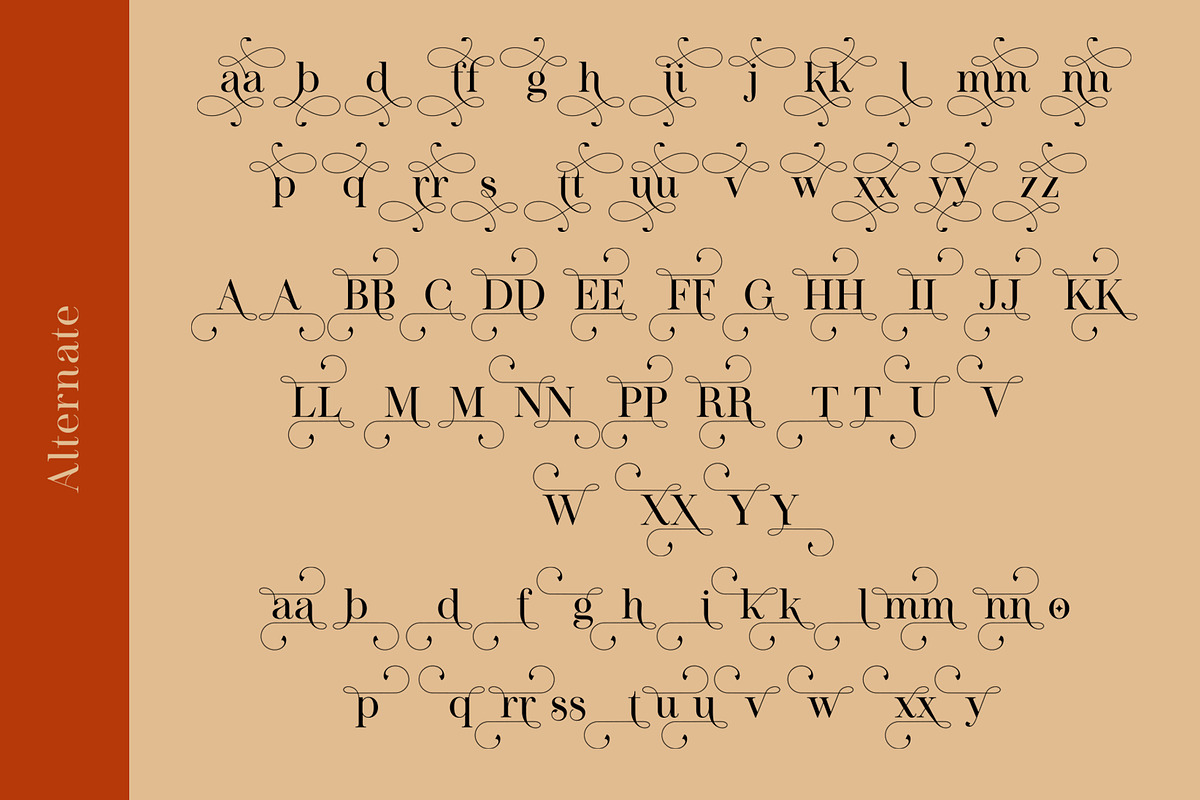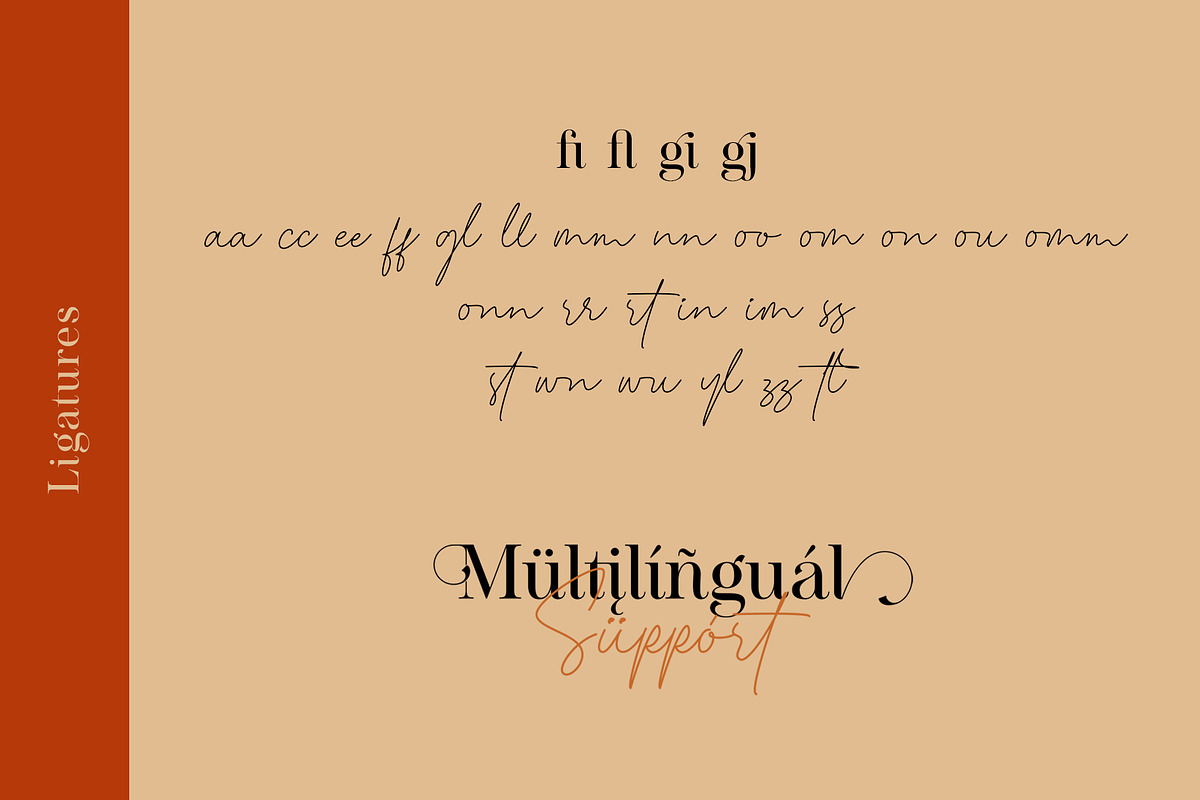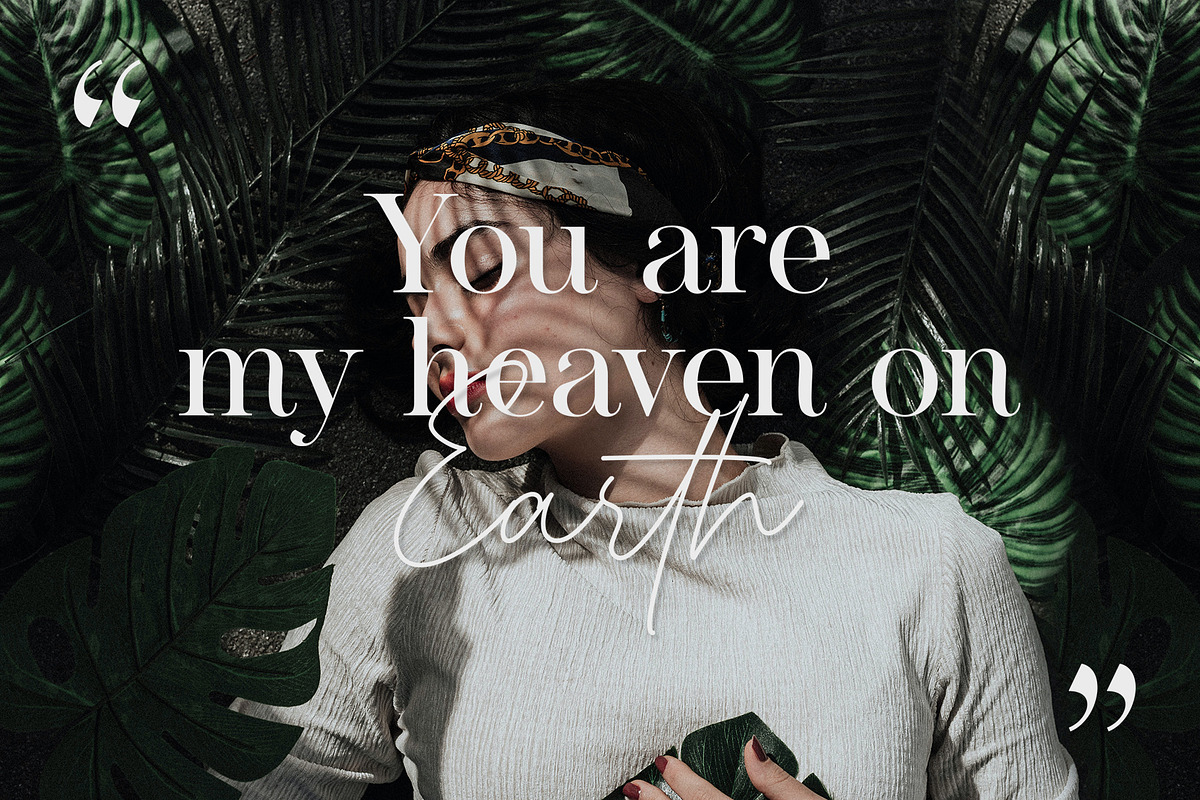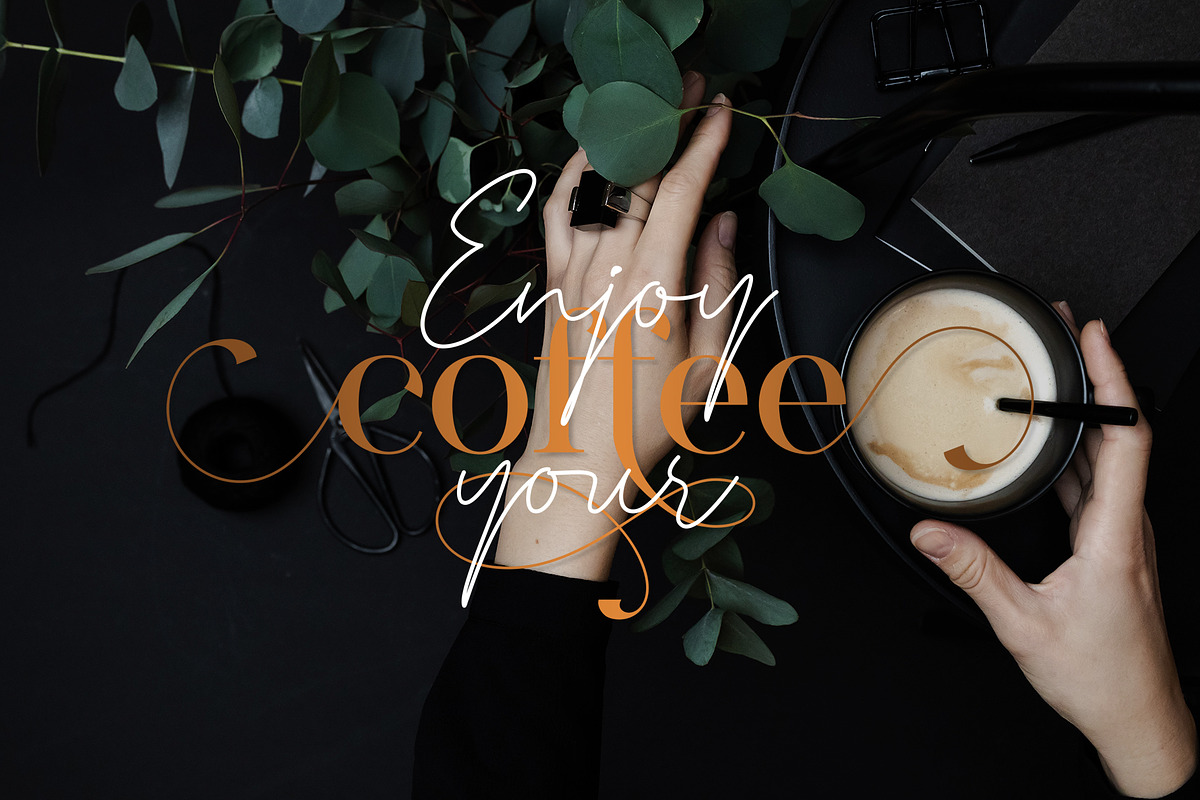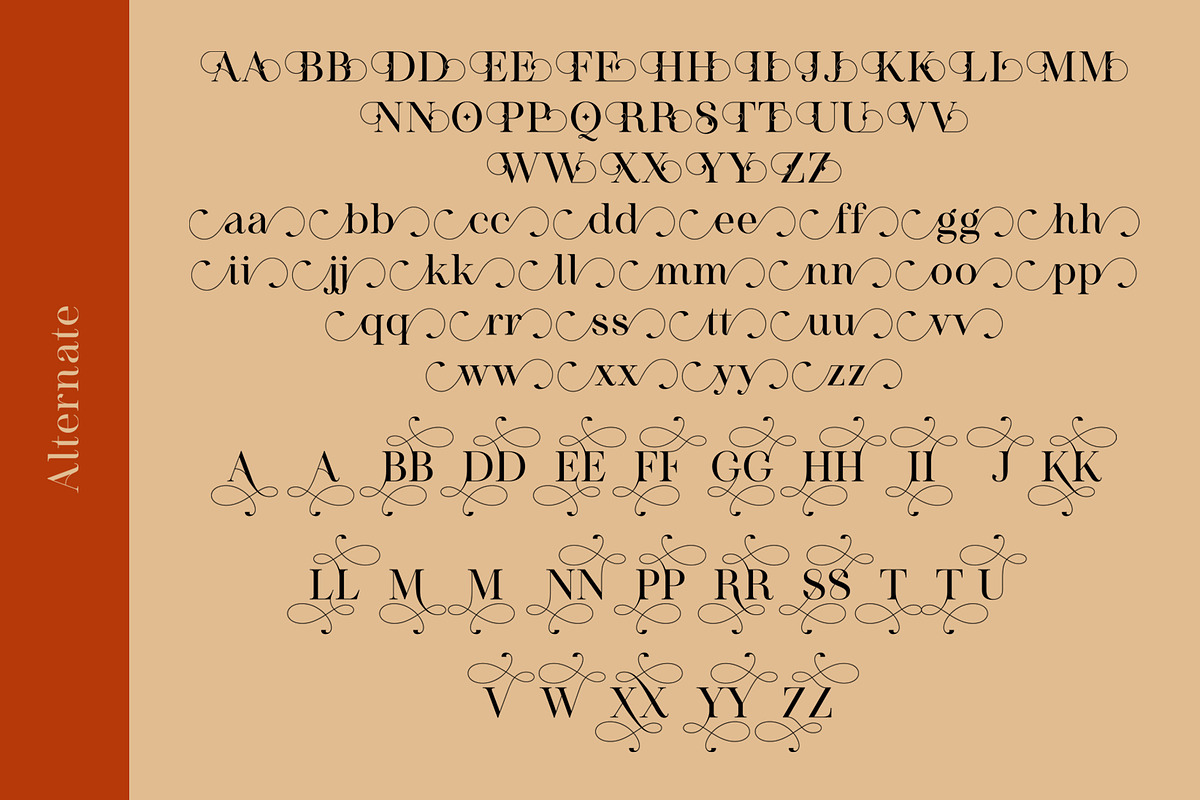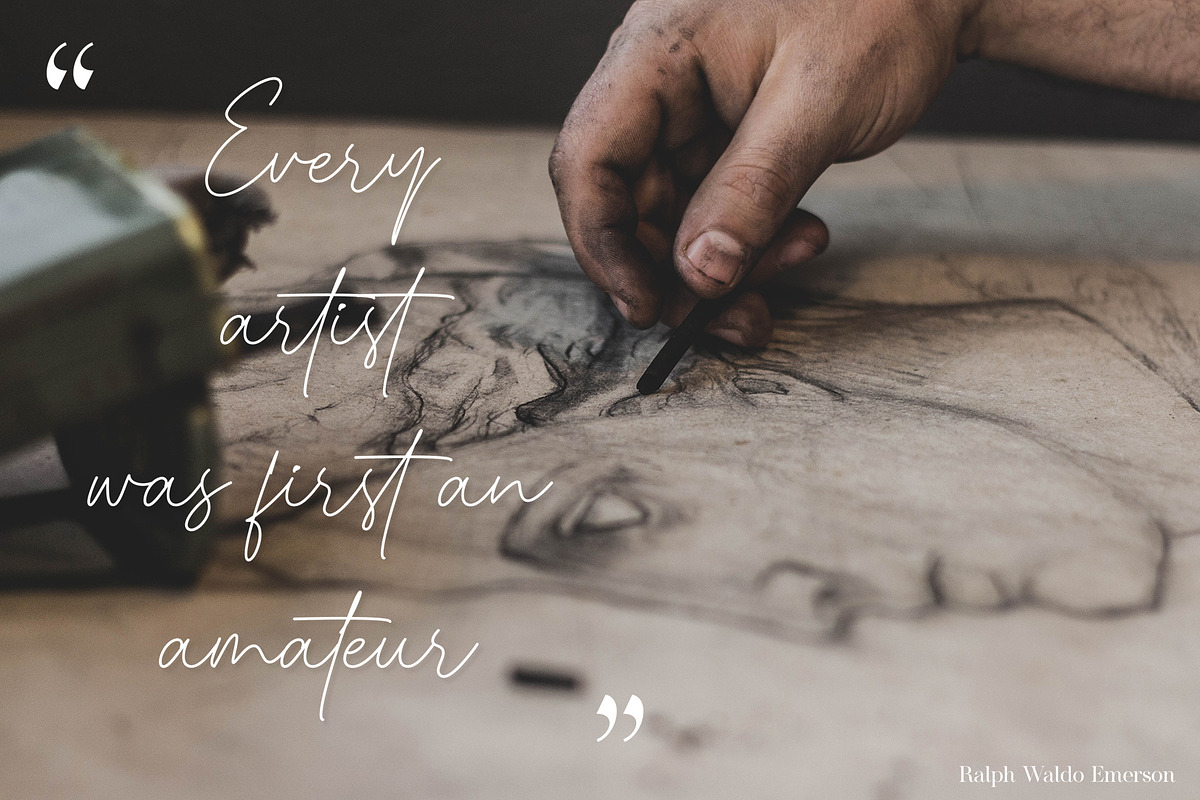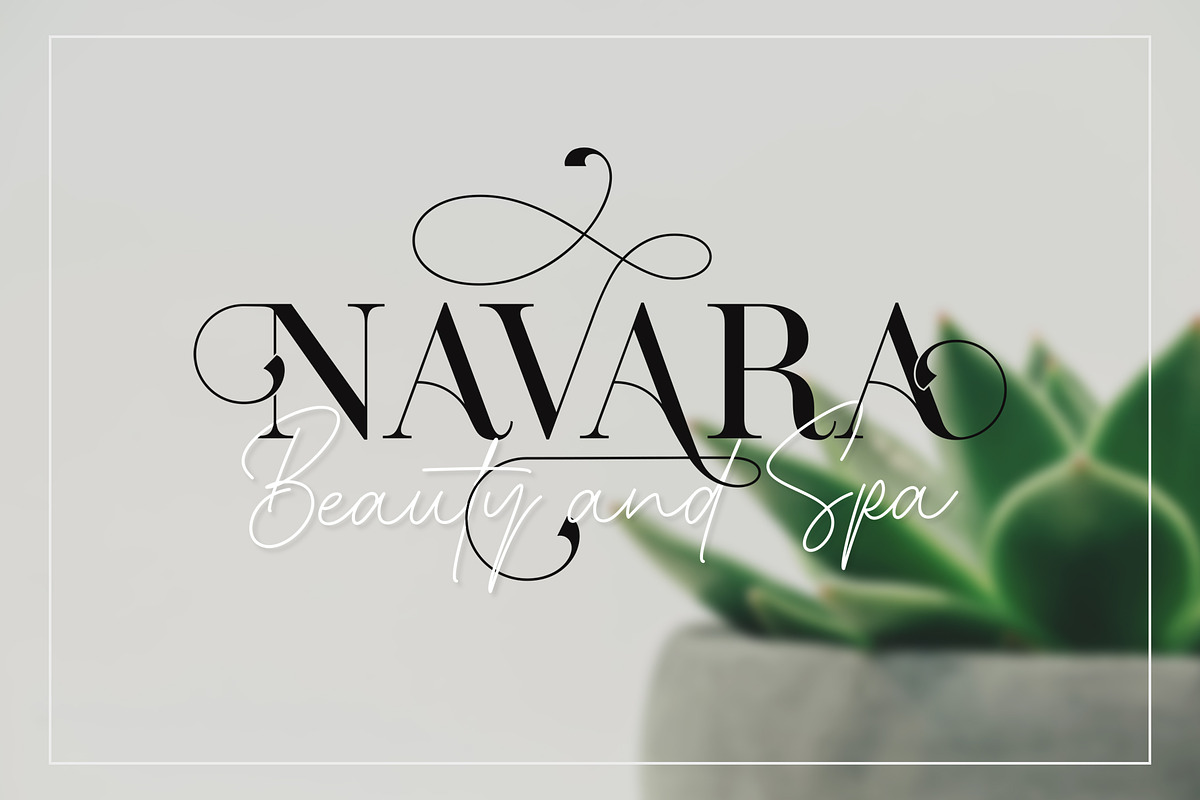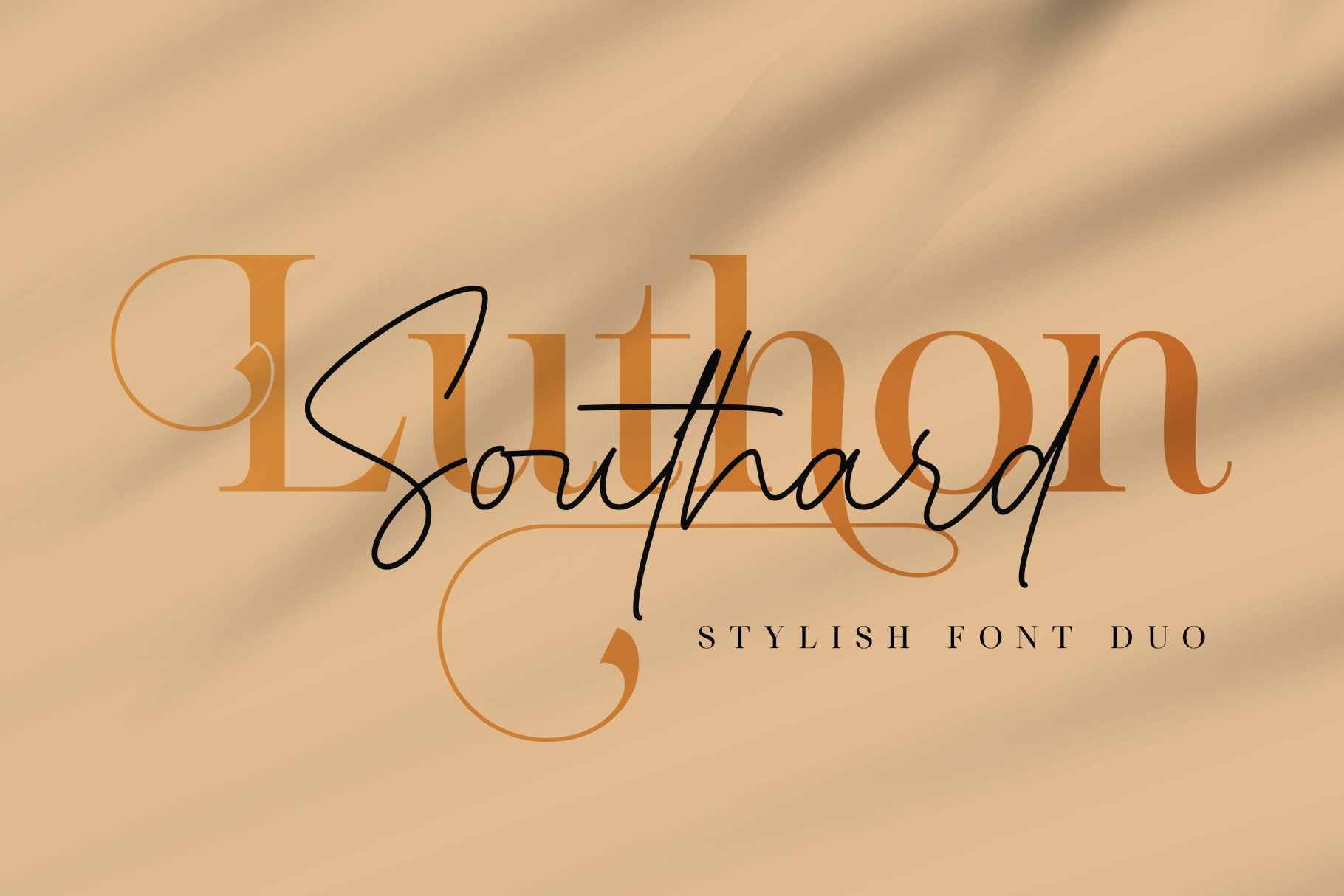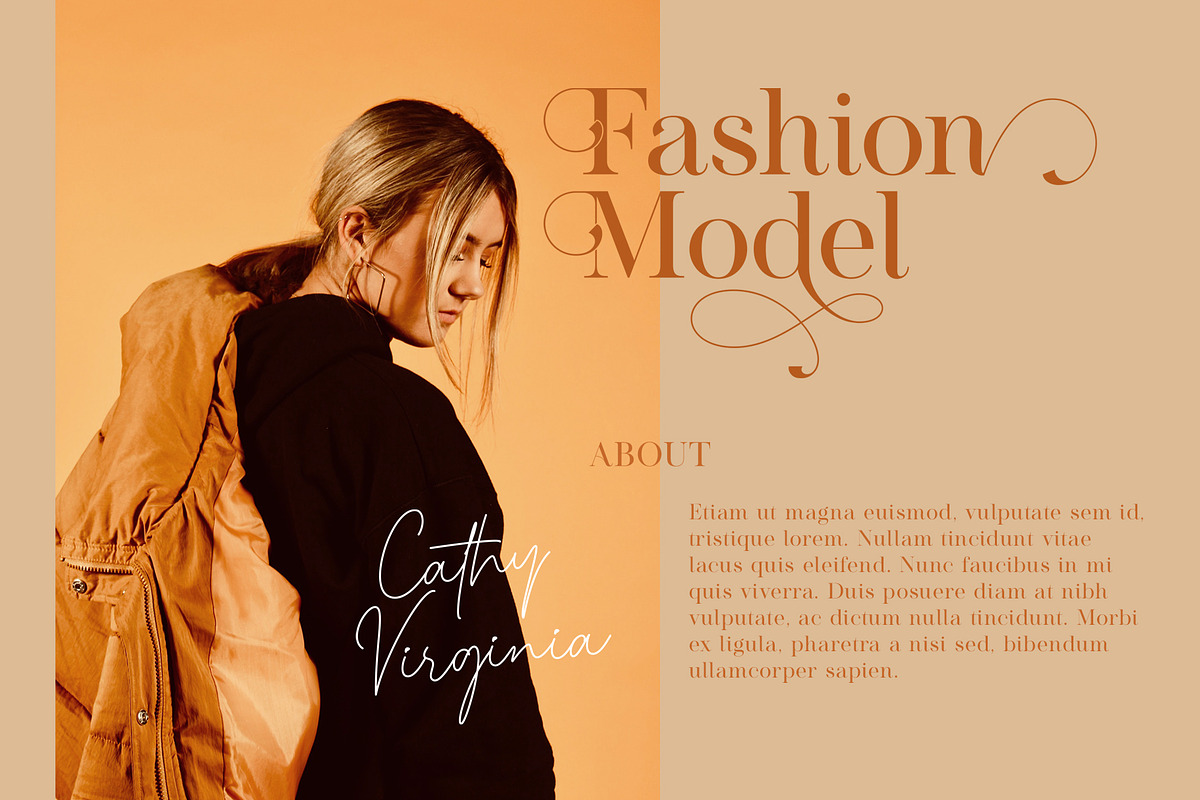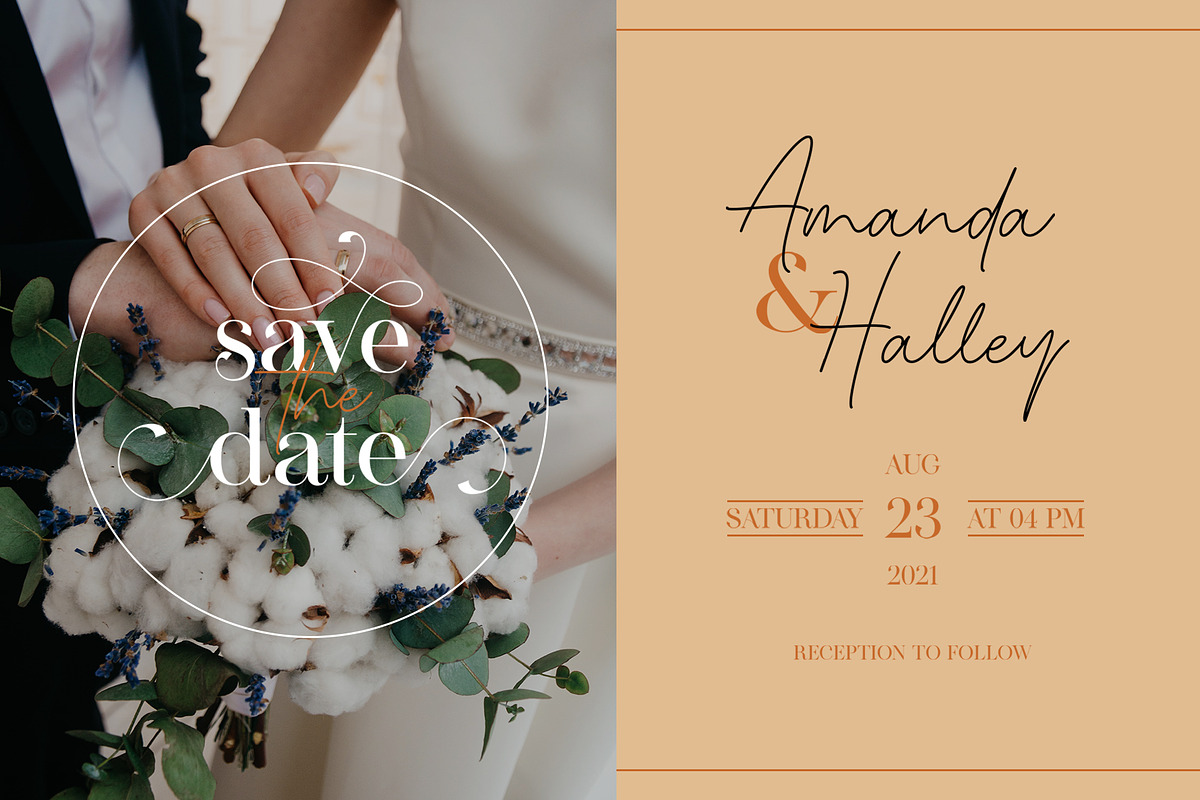
Luthon Southard | Stylish Font Duo
Luthon Southard is a spectacular duo font Stylish Serif and Monoline Script. Perfect for product packaging, branding project, magazine, social media, and much more. Add this font to your favorite creative ideas and notice how it makes them come alive!